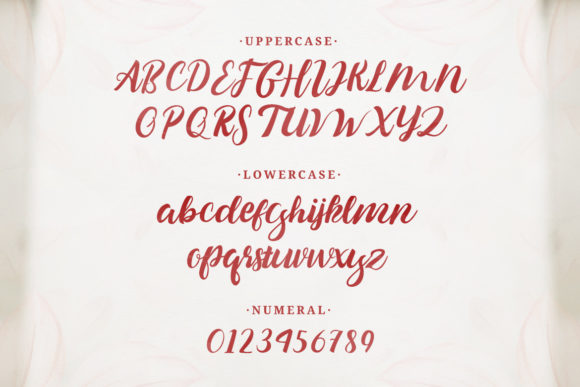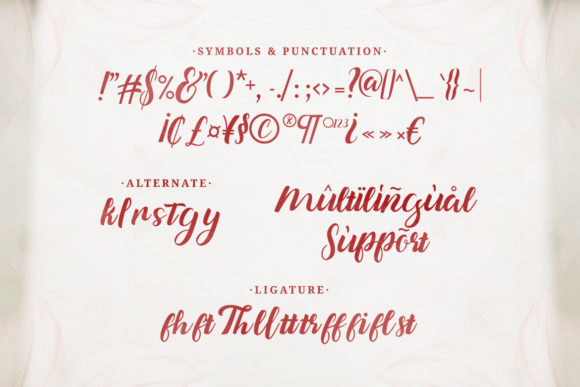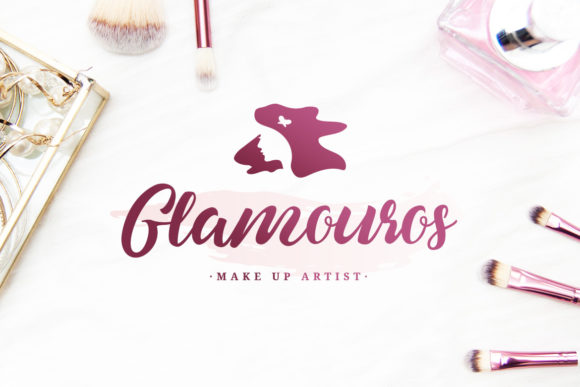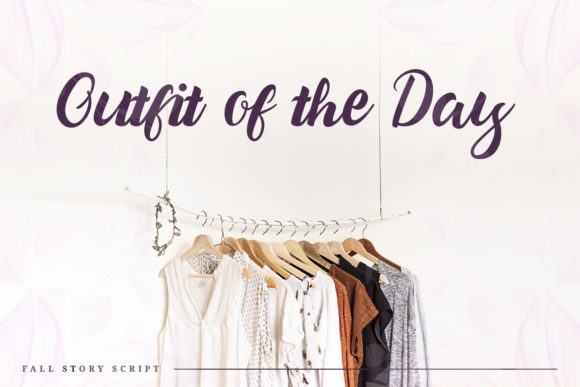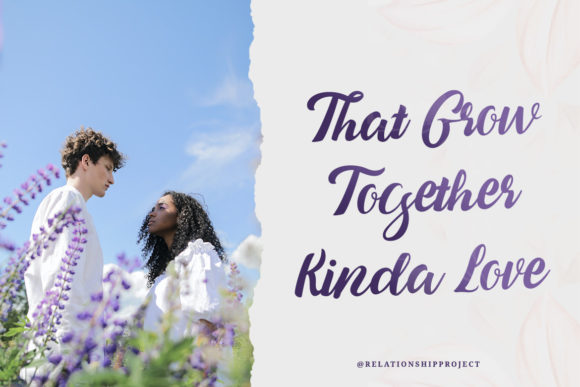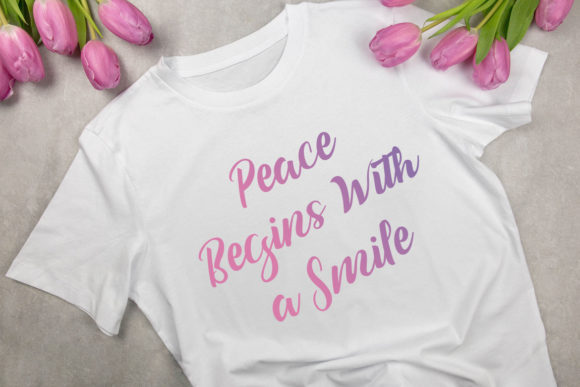
Introduction to Fall Story Font
Do you ever find yourself scribbling down ideas in a notebook, trying to capture the essence of a creative project that’s been brewing in your mind? For designers, those moments of inspiration can be the spark that sets off a chain reaction of innovative ideas. And, for many, the perfect font can be the key to bringing those ideas to life. Enter the Fall Story Font, a stylish and elegant script font that’s sure to leave a lasting impression on any design project.
With its high-quality design and versatility, the Fall Story Font is an invaluable resource for designers looking to add a touch of handwritten elegance to their work. Whether you’re creating a wedding invitation, a thank you card, or a business logo, this font is sure to elevate your design to the next level. Plus, with its transparent background, it’s perfect for designers who want to add a pop of color without compromising on style.
Key Features of Fall Story Font
- High-quality design resource perfect for creative projects and autumn-themed themes.
- Features a transparent background, allowing for seamless integration with your design.
- Unique characteristics: the font’s distressed texture and warm color palette evoke a sense of nostalgia and coziness, perfect for fall-themed designs.
Honest Review: Fall Story Font
I recently had the chance to work with the Fall Story Font, and I must say it’s a great addition to any designer’s toolkit. As a design enthusiast, I appreciate high-quality fonts that can elevate a creative project and add a touch of personality.
One of the things that stood out to me about the Fall Story Font is its versatility. It’s perfect for a variety of design projects, from weddings to seasonal promotions. The font’s elegant script and playful feel make it a great choice for designers looking to add a touch of whimsy to their work.
- High-quality design with a beautiful, elegant script.
- Perfect for a variety of design projects, from weddings to seasonal promotions.
- Transparent background, allowing for easy use in design projects.
- The font may not be suitable for all design projects, particularly those requiring a more formal or serious tone.
- The font’s playful feel may not appeal to designers looking for a more traditional or classic look.
Overall, I’m impressed with the Fall Story Font and would recommend it to designers looking for a high-quality, creative font to add to their design resource library. With its elegant script and playful feel, it’s a great choice for a variety of design projects.
Tips for Getting the Most Out of Fall Story Font
For a high-quality design, use Fall Story Font in conjunction with a transparent background to create a clean and modern look. You can also experiment with different font sizes and styles to add visual interest to your design.
Fall Story Font is a versatile design resource that can be used in a variety of creative projects, including invitations, social media graphics, and marketing materials. Its high-quality design makes it perfect for free downloads and sharing with others.